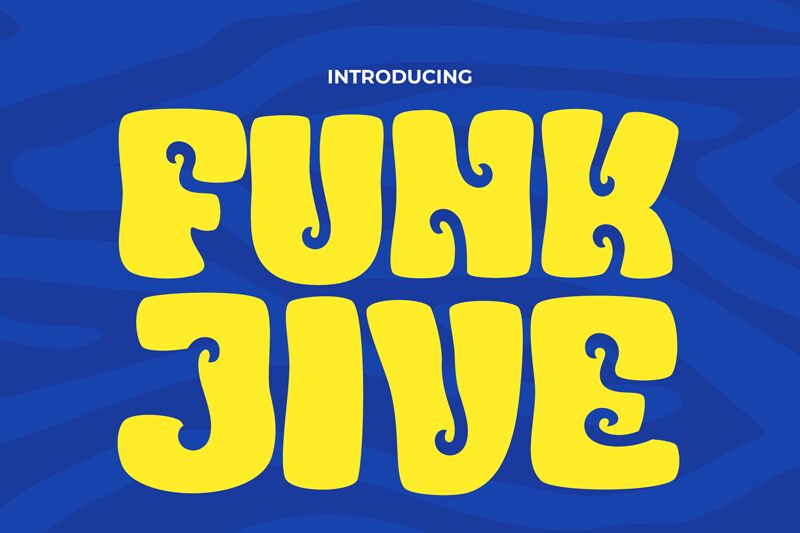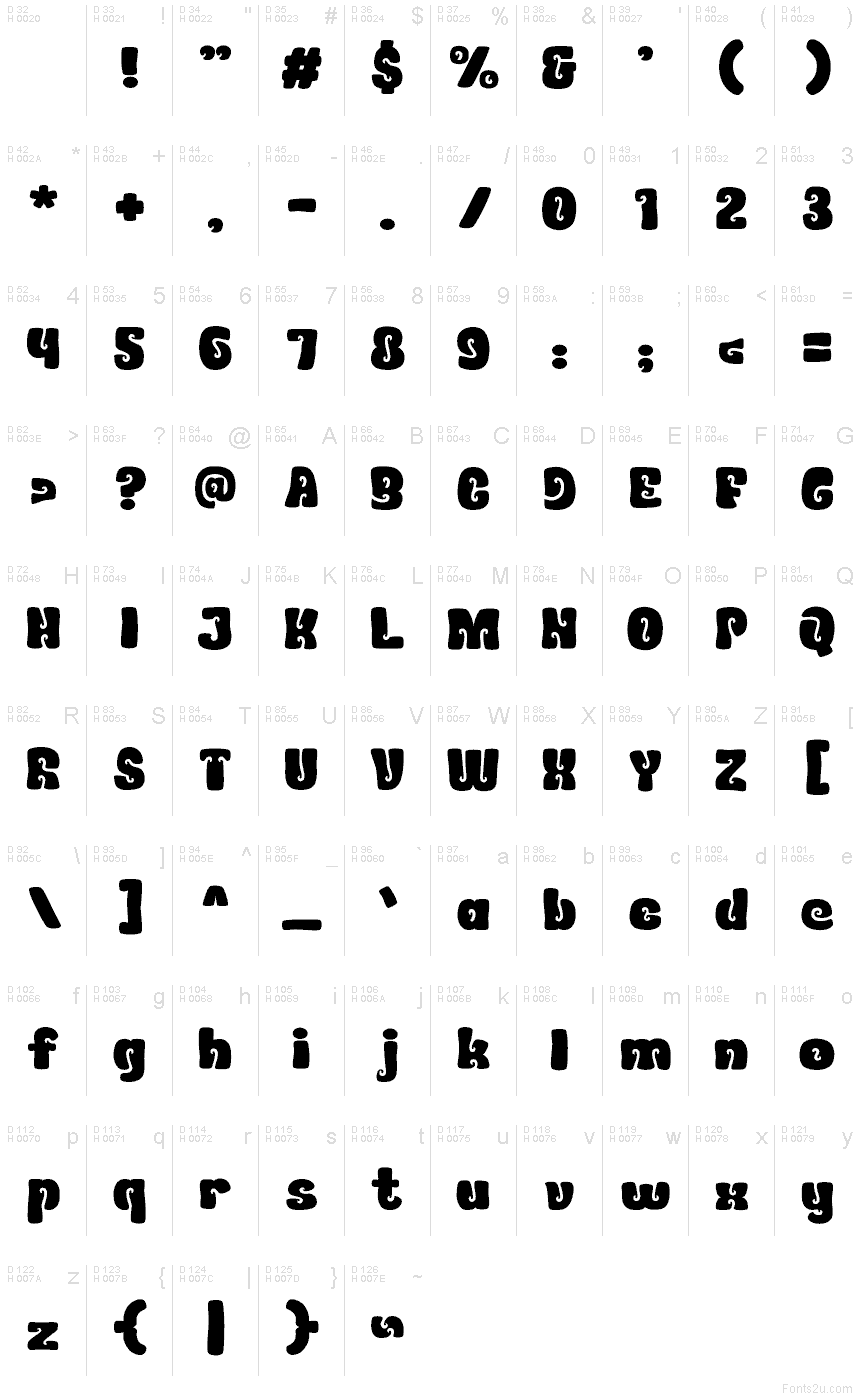
FUNK-JIVE
Funk-jive font by Pinisiart is a free groovy display typeface that looks like it just stepped off a ’70s dance floor. Chunky, rounded letters swell and curl with playful swashes, giving each word a wavy, hand-cut feel. The tight spacing and inky-black forms create a bold, poster-ready rhythm that feels loud, warm, and a little bit wild—perfect when you want type that doesn’t just speak, it shouts.
Using Funk-jive, your titles instantly feel like vintage record sleeves, summer festival banners, or retro party invites. This free font shines on music posters, event flyers, funky branding, bold packaging, social media graphics, and YouTube thumbnails. Keep it big and generous in size, then pair Funk-jive with a simple, clean sans serif for small supporting text so the groovy shapes can steal the spotlight.